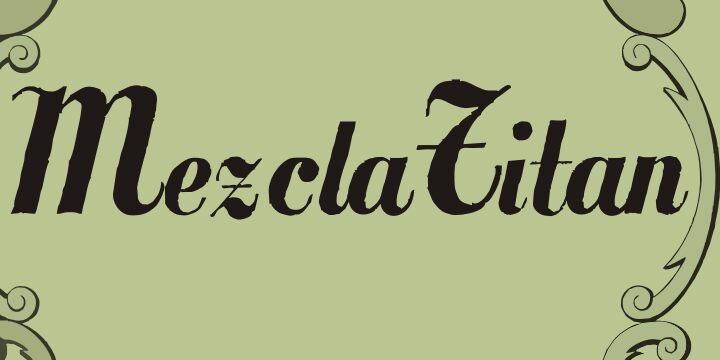
Mezcla Titan by Paulo W is a free calligraphic script with towering, high-contrast letters and a sharply theatrical silhouette. Heavy downstrokes meet hairline joins and rough, sharply cut edges.
Dark romance, historic drama, and flamboyant stage imagery suit its oversized sweeping forms, making it a convincing choice for luxury fashion campaigns, album artwork, and event posters. It can also turn illustrated book covers and spirits packaging into part of the illustration, with the pointed letters acting almost like decorative engraved ornament.